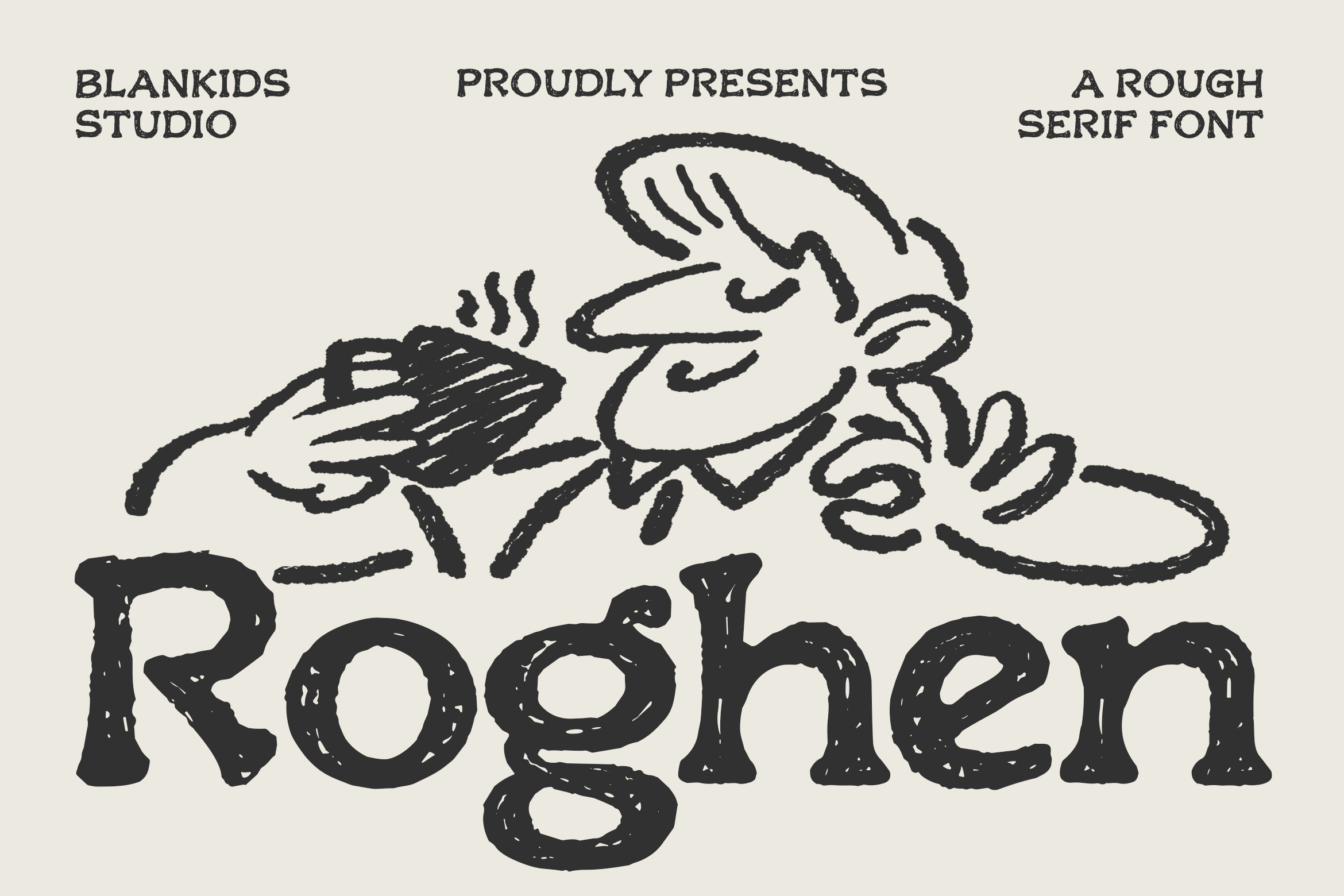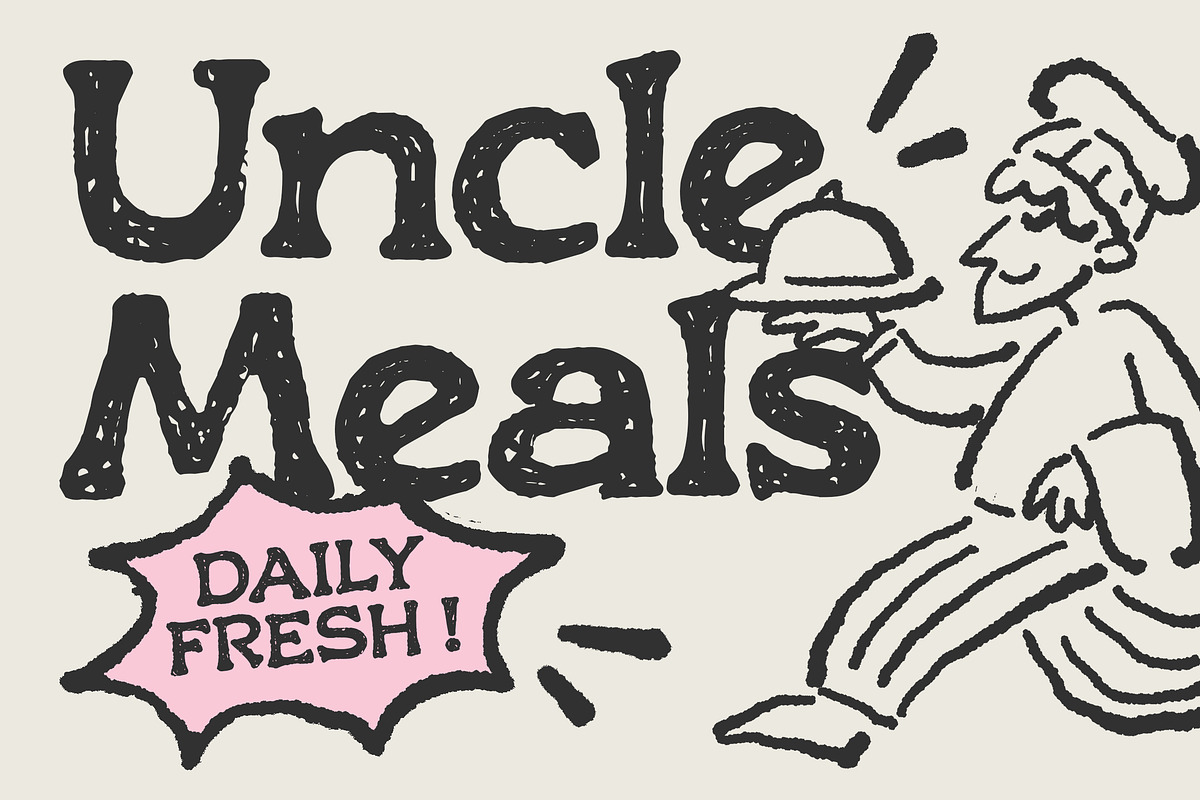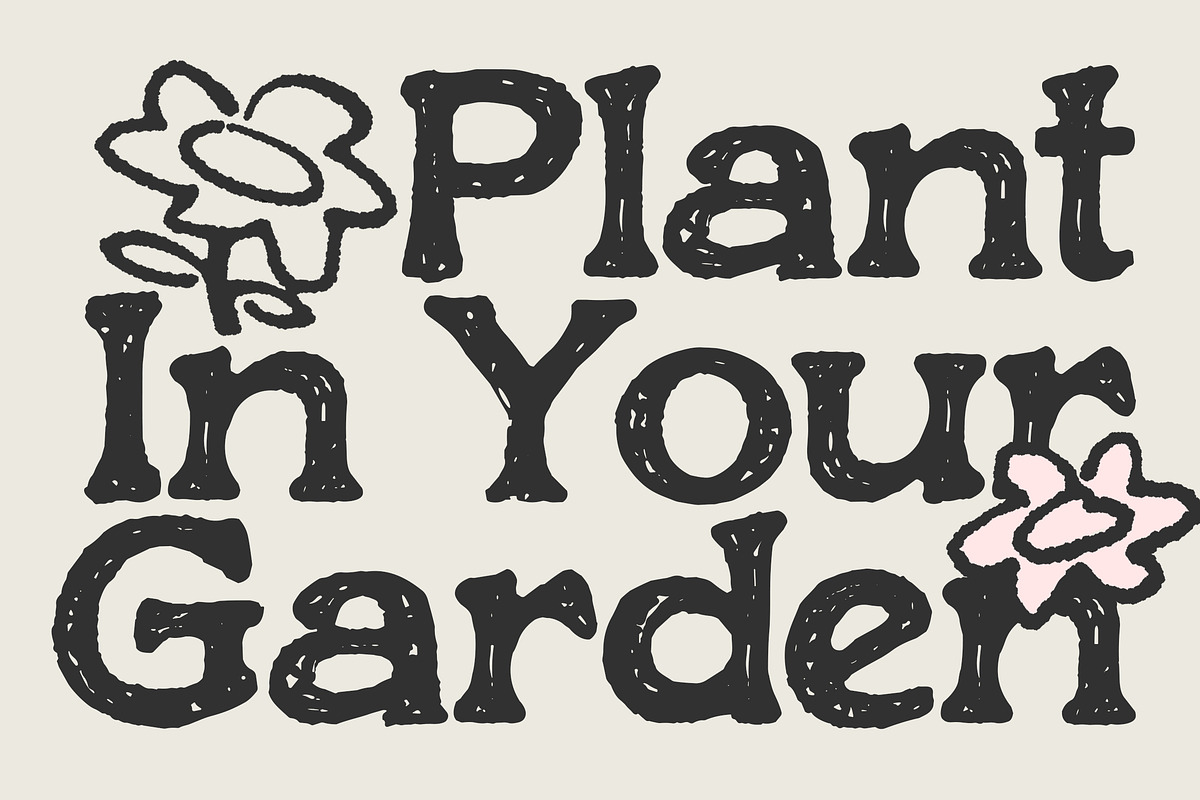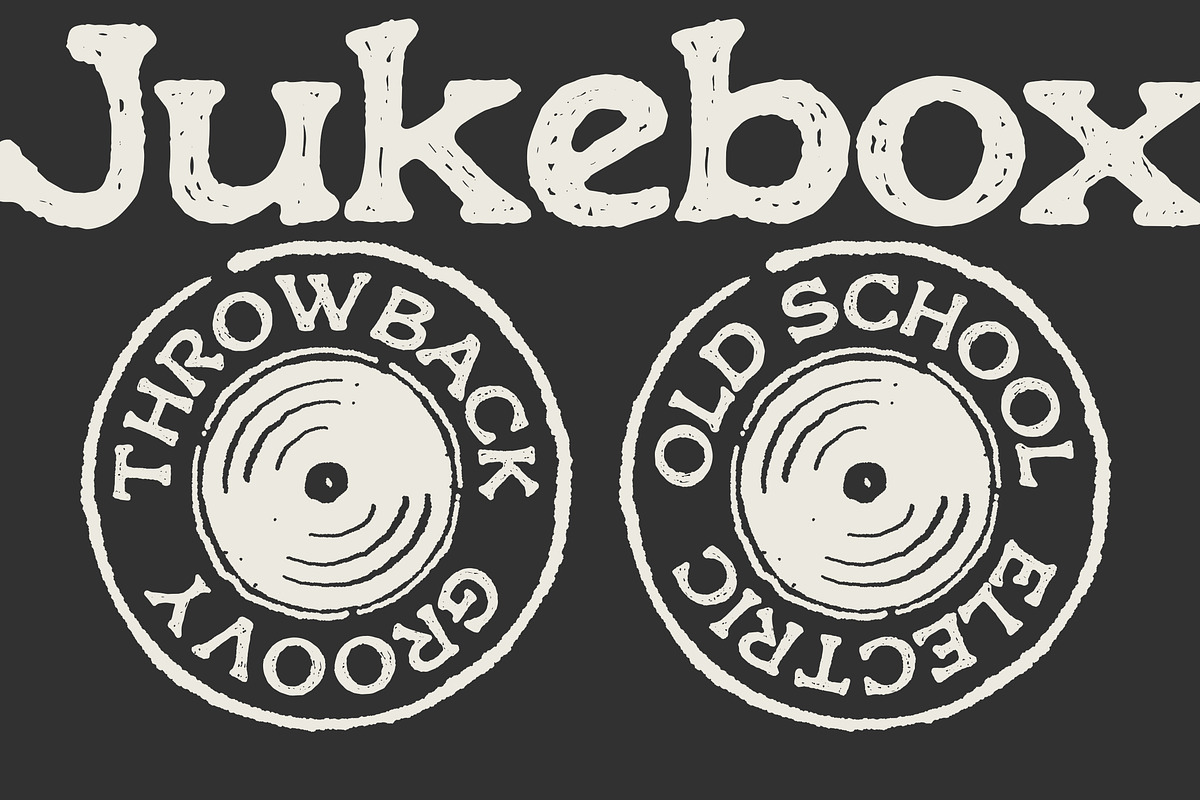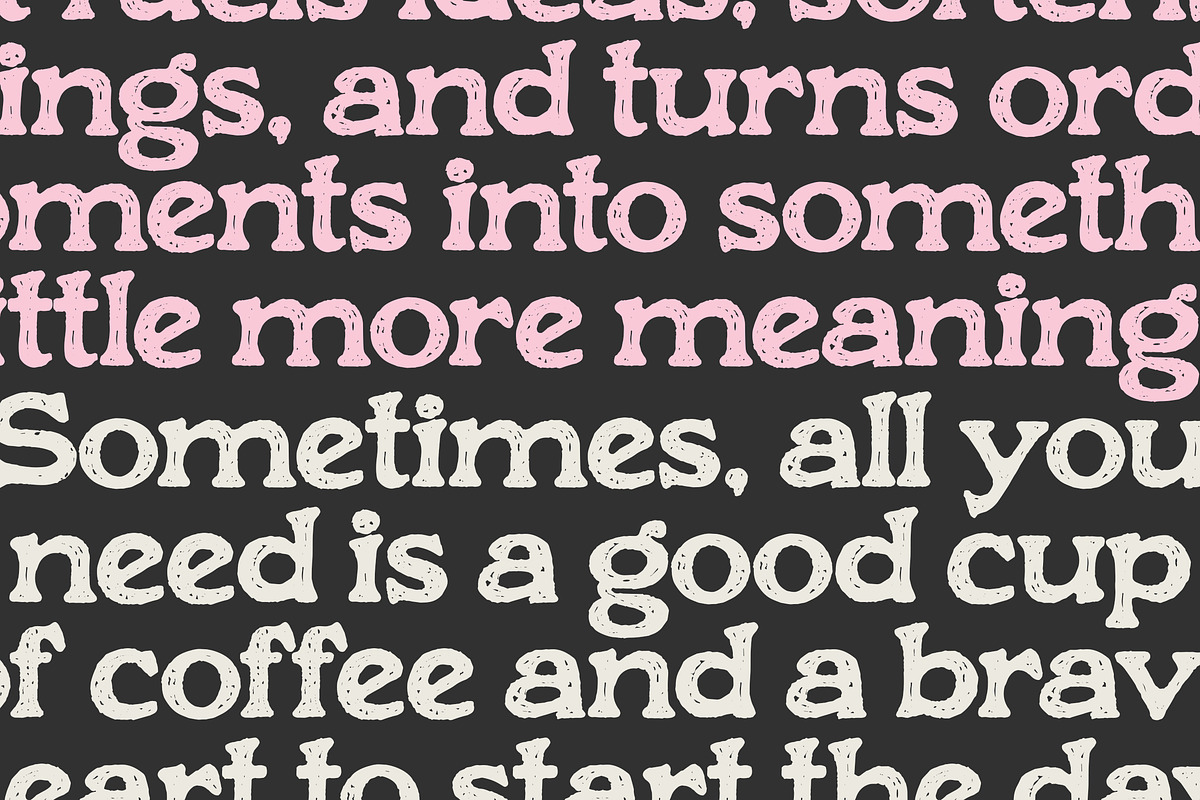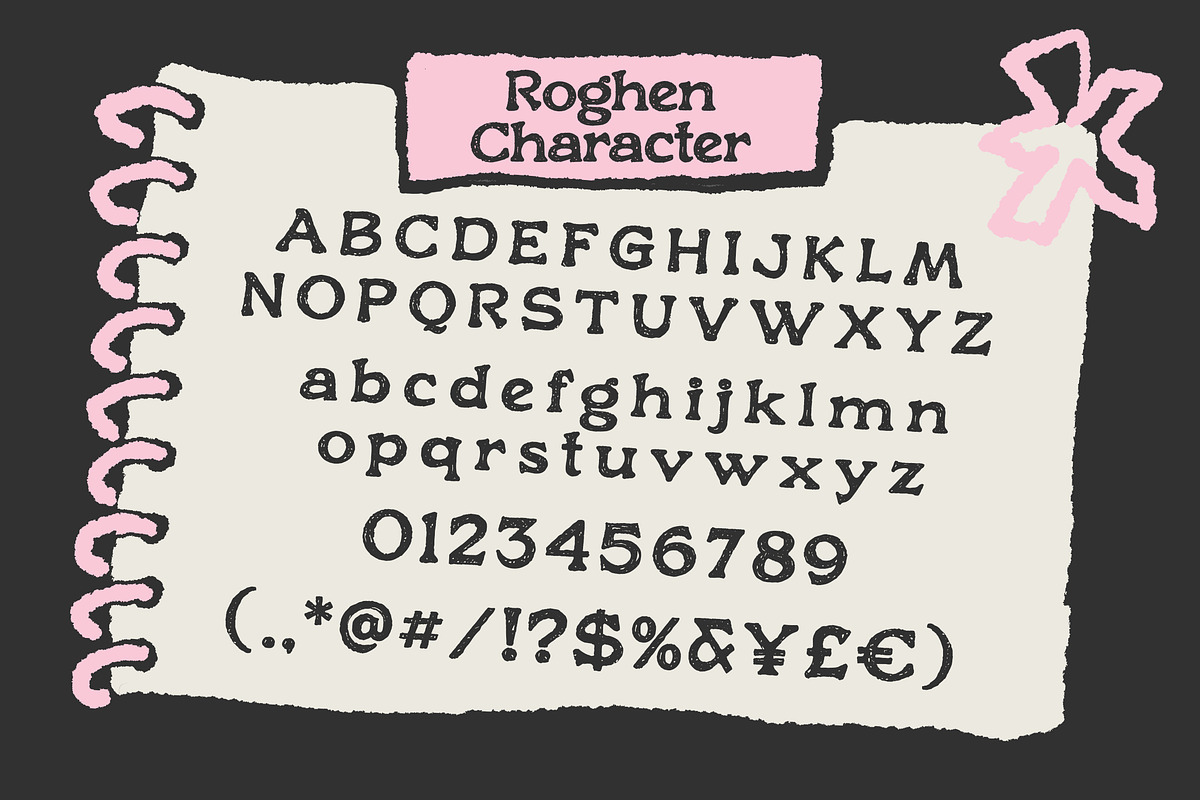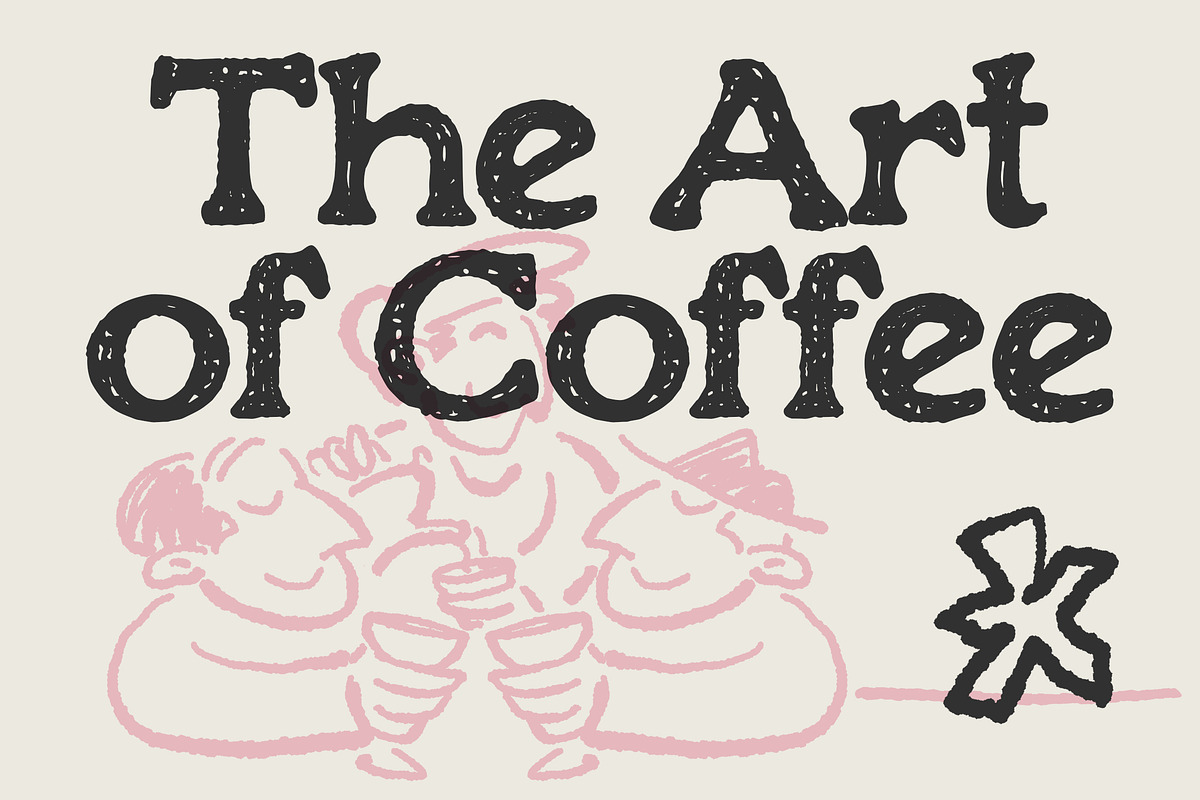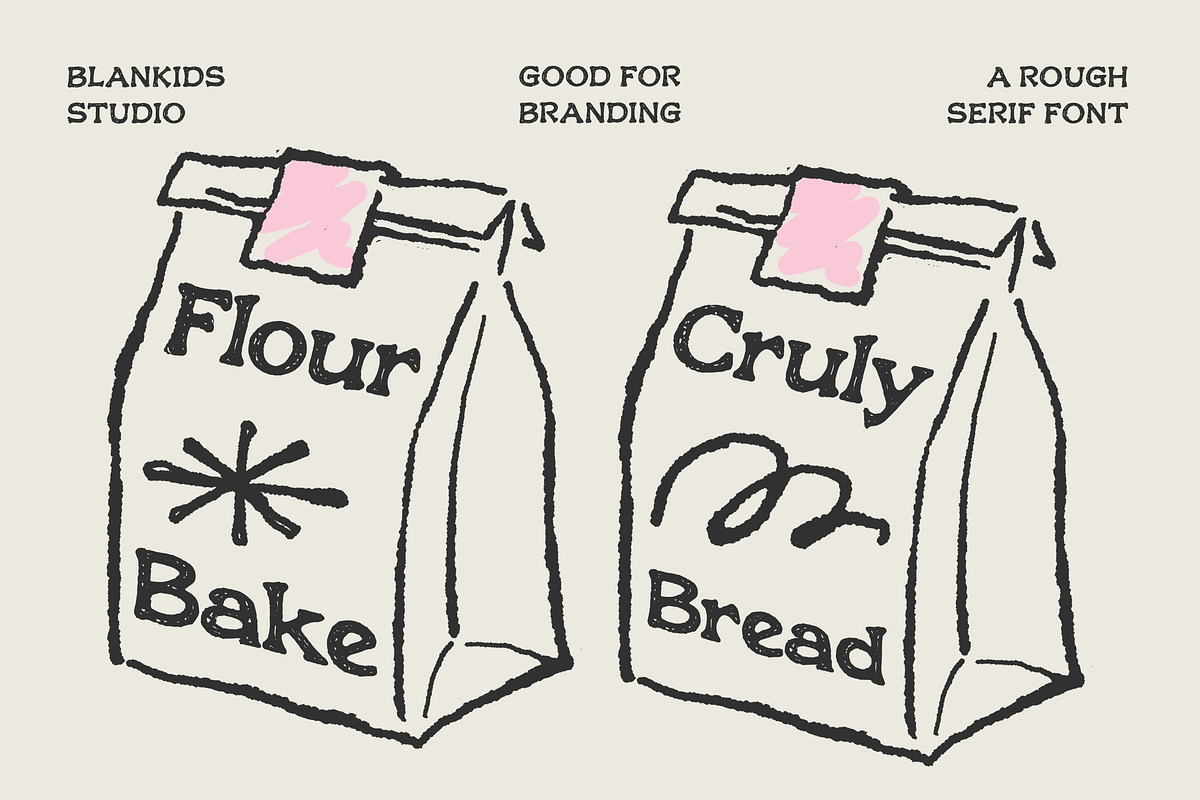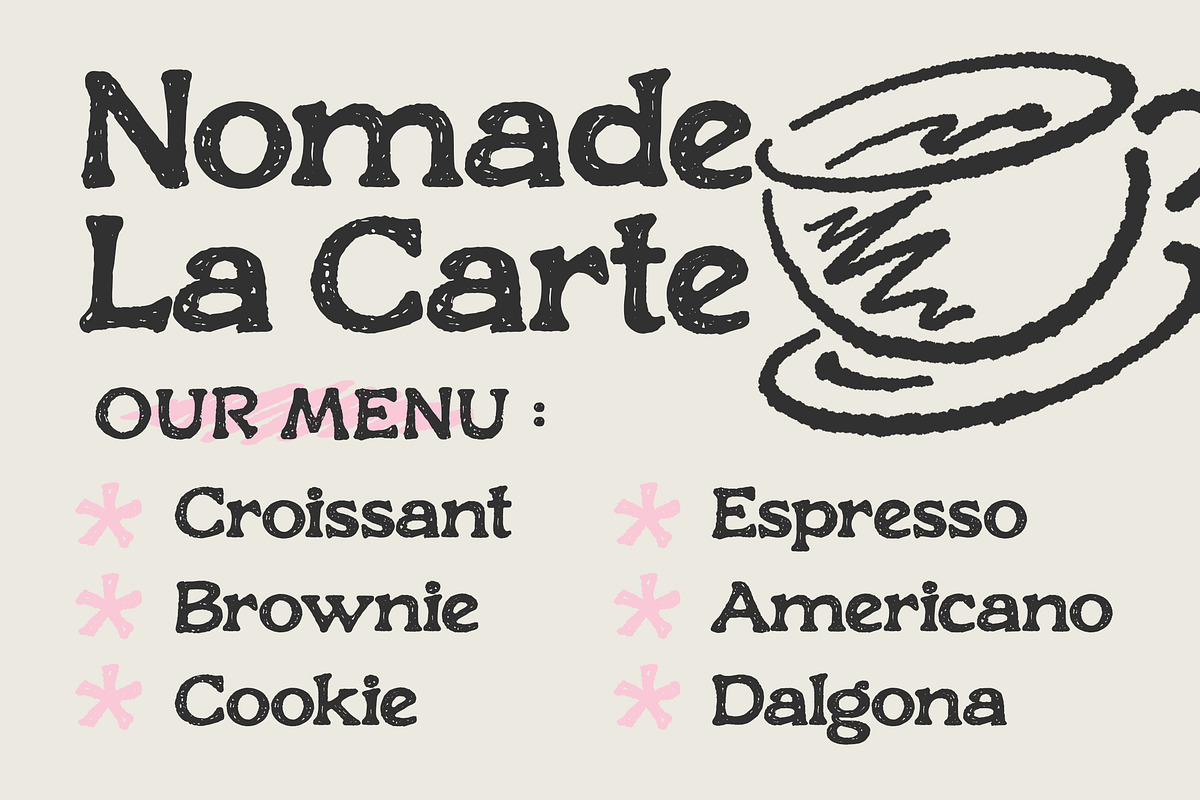
Roghen a Rough Serif Font
Roghen is a bold rough serif display font crafted to bring personality, texture, and expressive charm into your creative projects. Inspired by hand-drawn lettering and vintage print aesthetics, Roghen combines organic imperfections with strong serif structure creating a look that feels raw, warm, and full of character.
Designed for creatives who want something authentic and eye-catching, Roghen delivers a handcrafted feel while maintaining excellent readability. The subtle rough texture gives your typography a natural, imperfect, and artistic edge perfect for brands that want to stand out with a bold and playful identity.
Whether you're designing for lifestyle brands, food packaging, event posters, social media graphics, or editorial headlines, Roghen brings a distinctive vintage-modern balance that feels both nostalgic and fresh.
- Poster & headline design
- Food & beverage branding
- Café & restaurant identity
- Packaging design
- Event promotions
- Social media graphics
- Merchandise & apparel
- Editorial & magazine layouts
- Creative branding projects
Why Choose Roghen?
Roghen is more than just a serif font it’s a statement piece. The textured strokes and expressive letterforms give your design a human touch that feels authentic, creative, and full of personality.
If you are looking for a rough serif font, vintage display typeface, hand-drawn serif font, or a **textured headline font that stands out in crowded design spaces, Roghen is the perfect addition to your font collection.